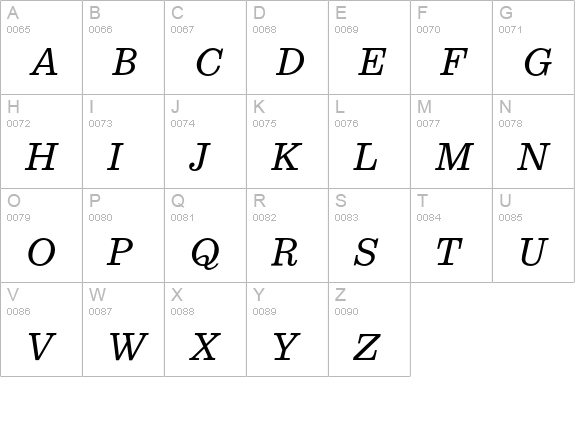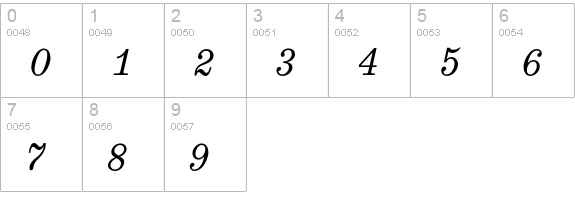
Egizio-Italic is a distinctive, italic variant in the Egizio typeface family \xE2\x80\x94 well suited to design and typography projects.
Egizio-Italic font is a breathtaking typeface that effortlessly blends elegance and sophistication. With its sleek and slender letterforms, this font exudes a timeless charm that is sure to captivate any reader. The delicate curves and graceful strokes of Egizio-Italic make it perfect for adding a touch of class to any design project. What sets Egizio-Italic apart is not only its stunning aesthetic but also its availability as a free download. That's right, this exquisite font can be yours without spending a dime. Simply head over to FontsMarket.com, where you can easily access and download Egizio-Italic to enhance your creative endeavors. Whether you're a designer working on a high-end branding project, a blogger looking to elevate your website's typography, or a writer in need of a stylish font for your next publication, Egizio-Italic will not disappoint. Its versatility allows it to shine in various design applications, from headings and titles to body text and captions. With Egizio-Italic, your projects will stand out from the crowd, leaving a lasting impression on your audience. Its clean and legible letterforms ensure readability, while its unique personality adds a touch of sophistication that is hard to match. So why wait? Take advantage of this incredible opportunity to elevate your design game with Egizio-Italic. Visit FontsMarket.com today and unleash your creativity with this remarkable font, freely available for download.